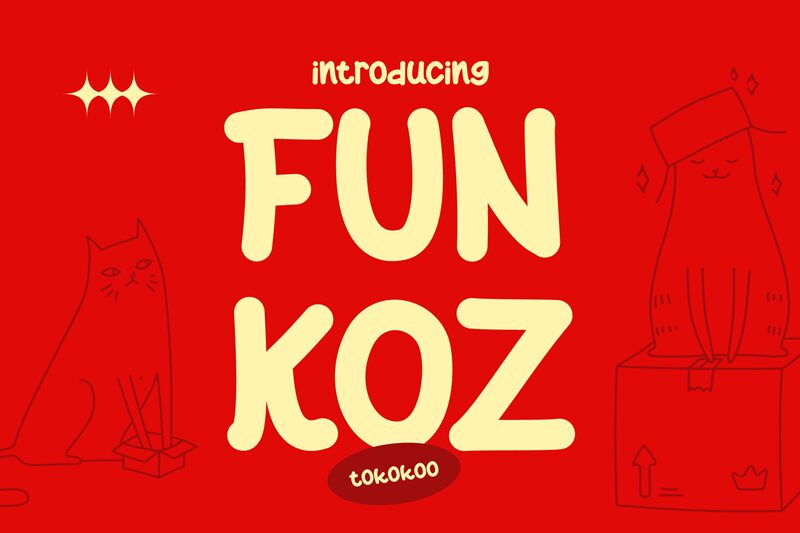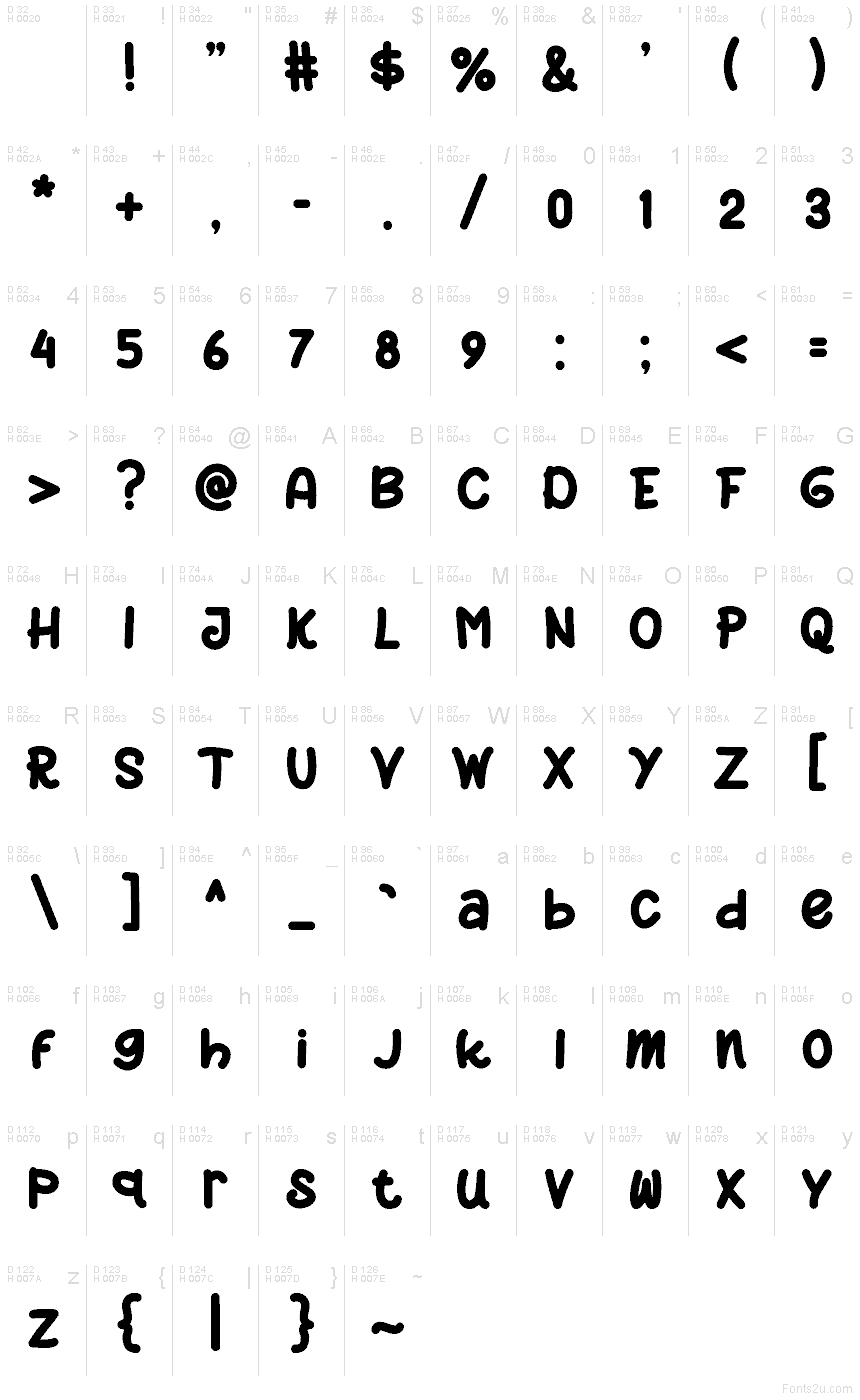
Funkoz font by Tokokoo Studio is a free cartoon display typeface with big, inky letters that feel like they’ve been drawn in thick marker. The rounded shapes wobble just enough to look playful without becoming messy, giving your text a bold, friendly shout instead of a stiff headline. Its chunky strokes hold up at large sizes, so every word feels loud, bouncy, and full of character.
Using Funkoz, this free font shines on kids’ book covers, toy packaging, birthday invitations, YouTube thumbnails, game titles, and school event posters. The generous curves and solid weight make it easy to read even over busy backgrounds or bright colors. Pair Funkoz with a clean sans serif for small body copy, and let these big, bubbly letters handle the loudest, most joyful parts of the layout.